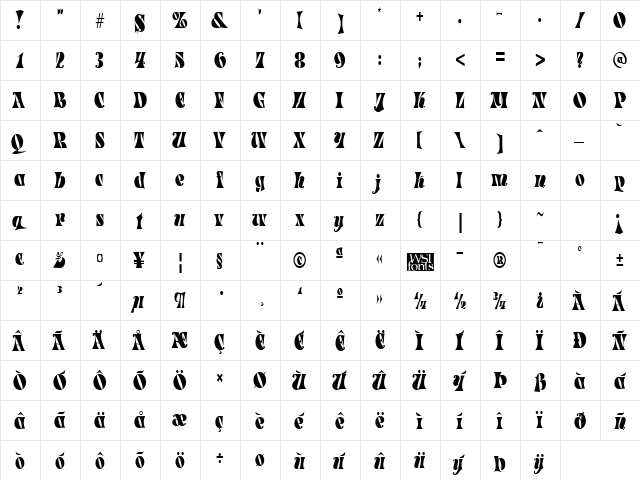
ParadeTight Regular
Design Context for ParadeTight Typeface
ParadeTight is a composed and adaptable typeface that performs quietly and consistently across a wide range of design contexts.